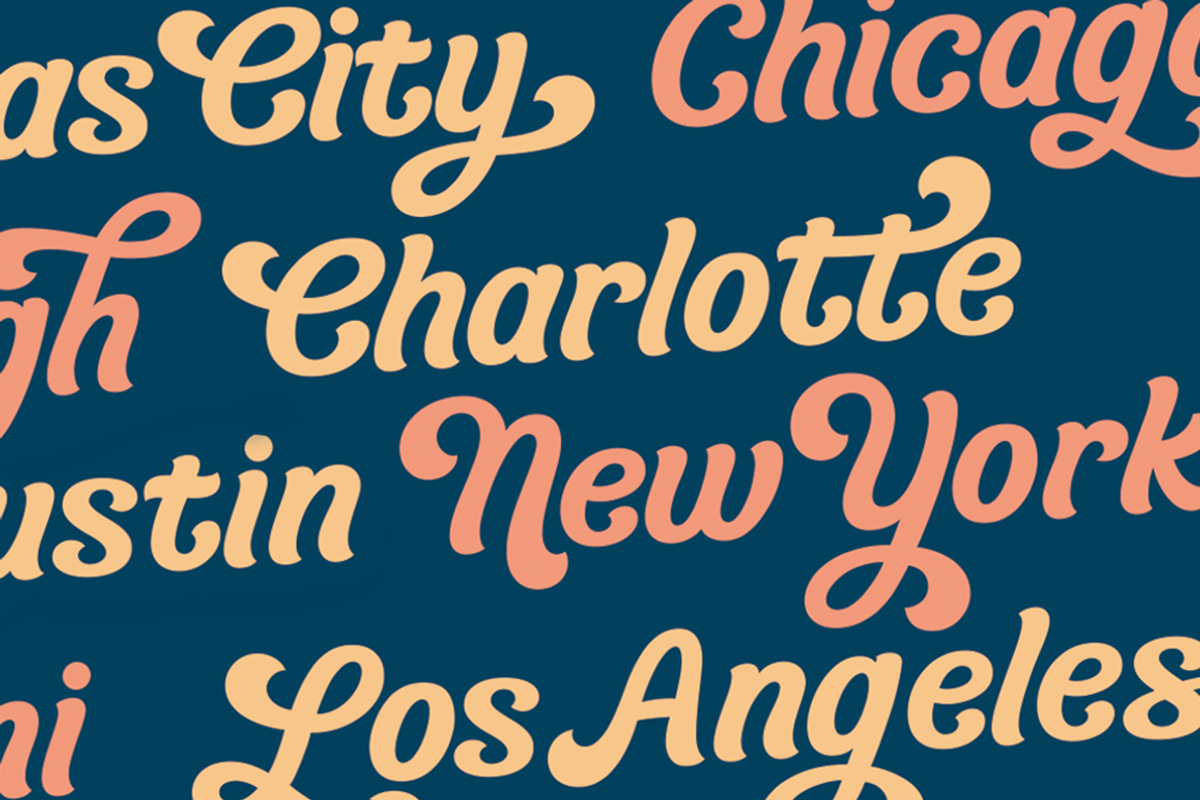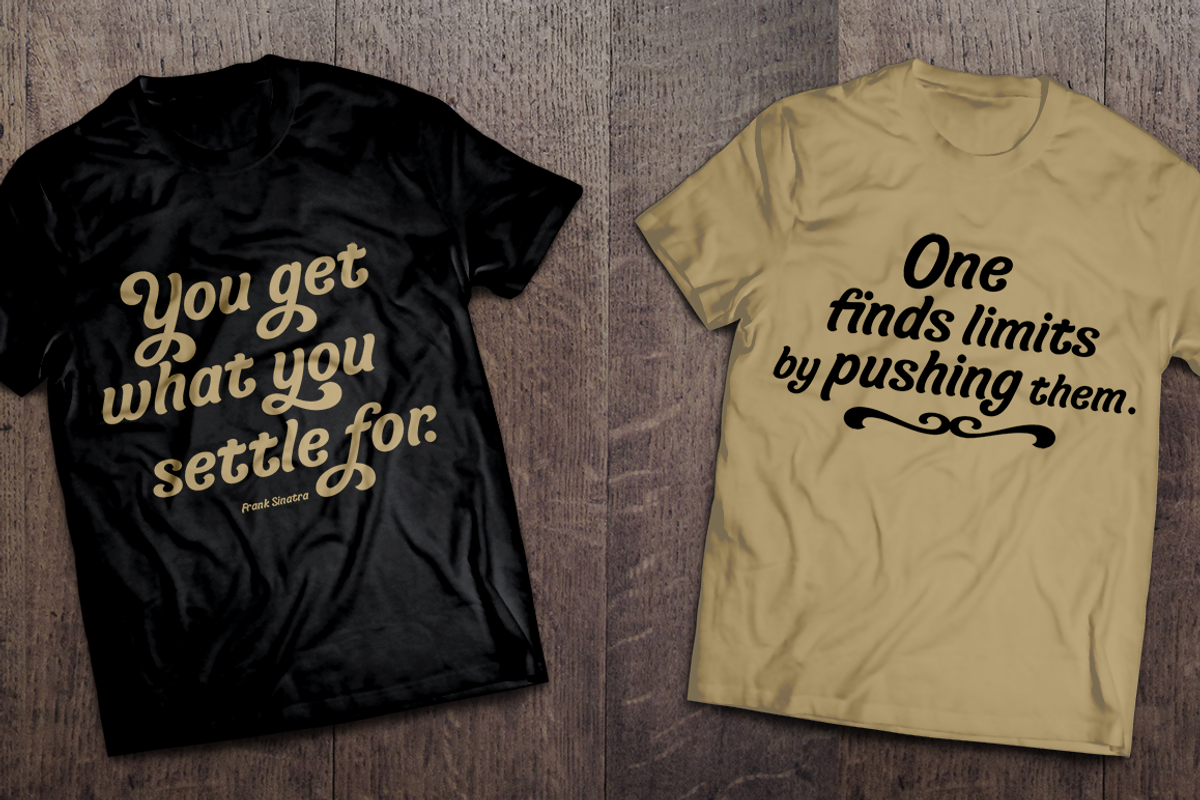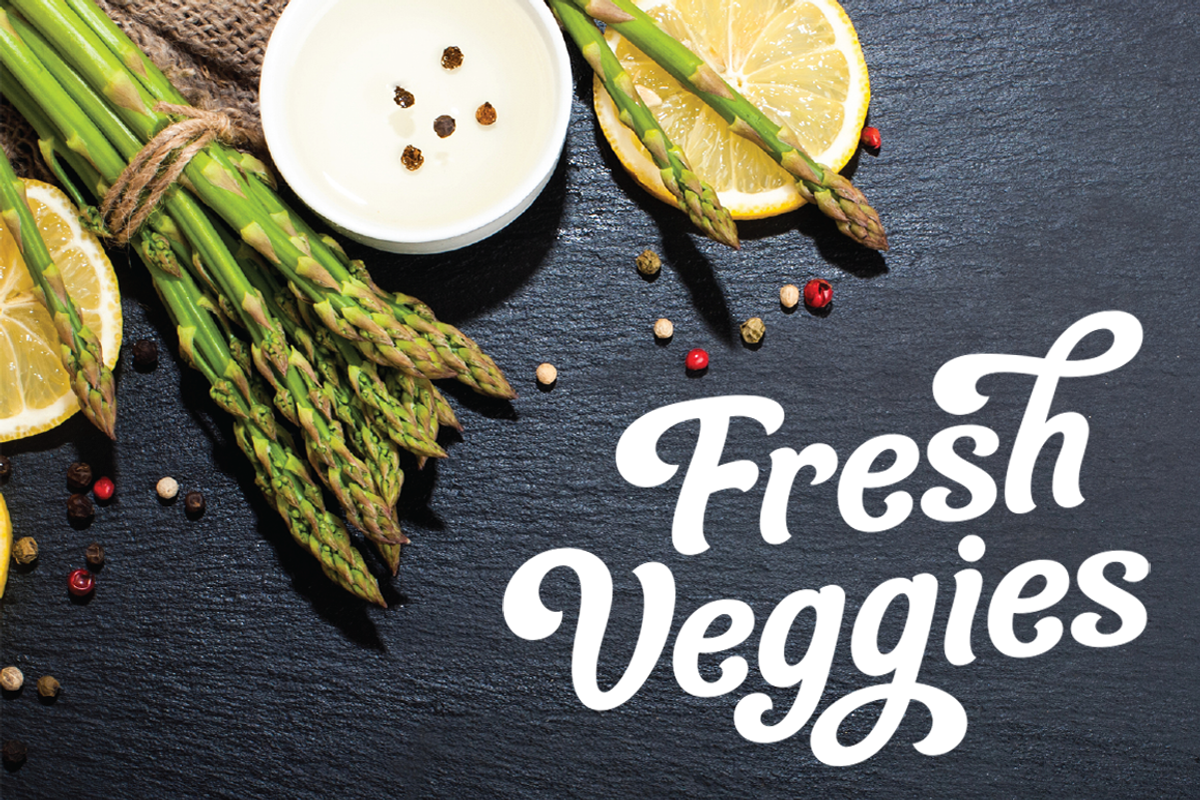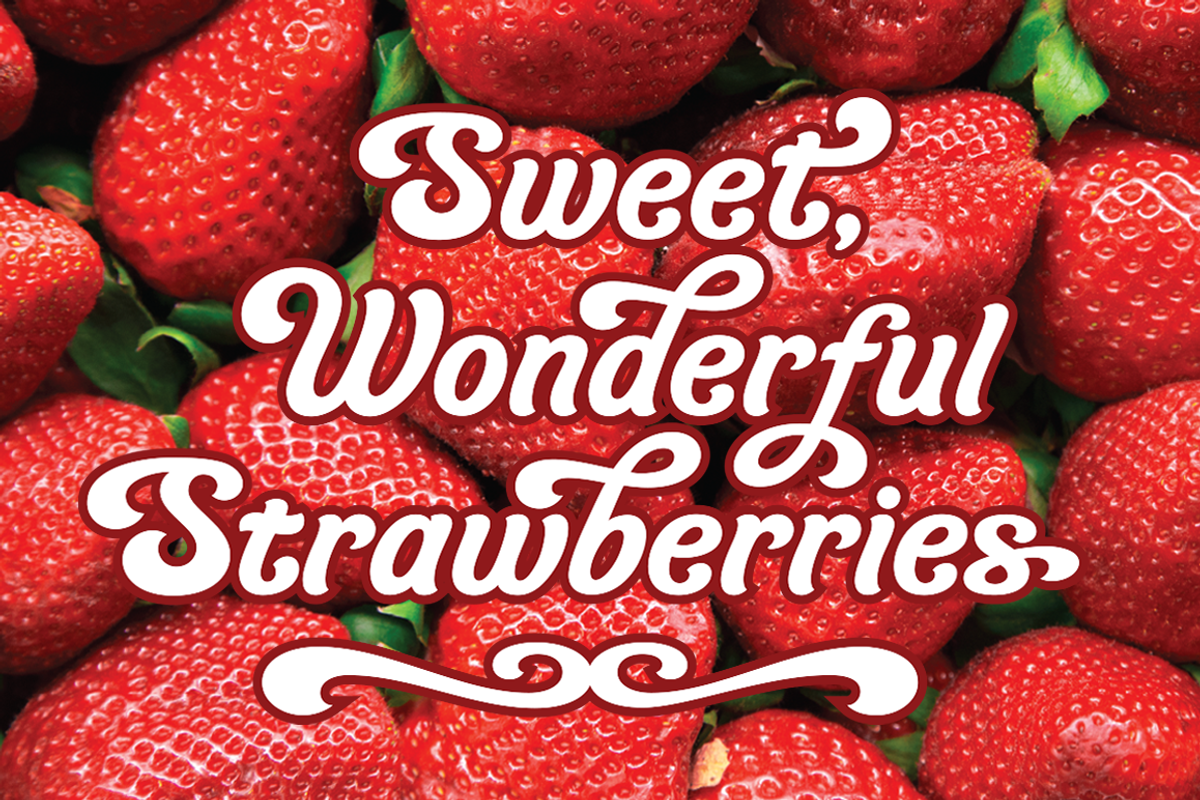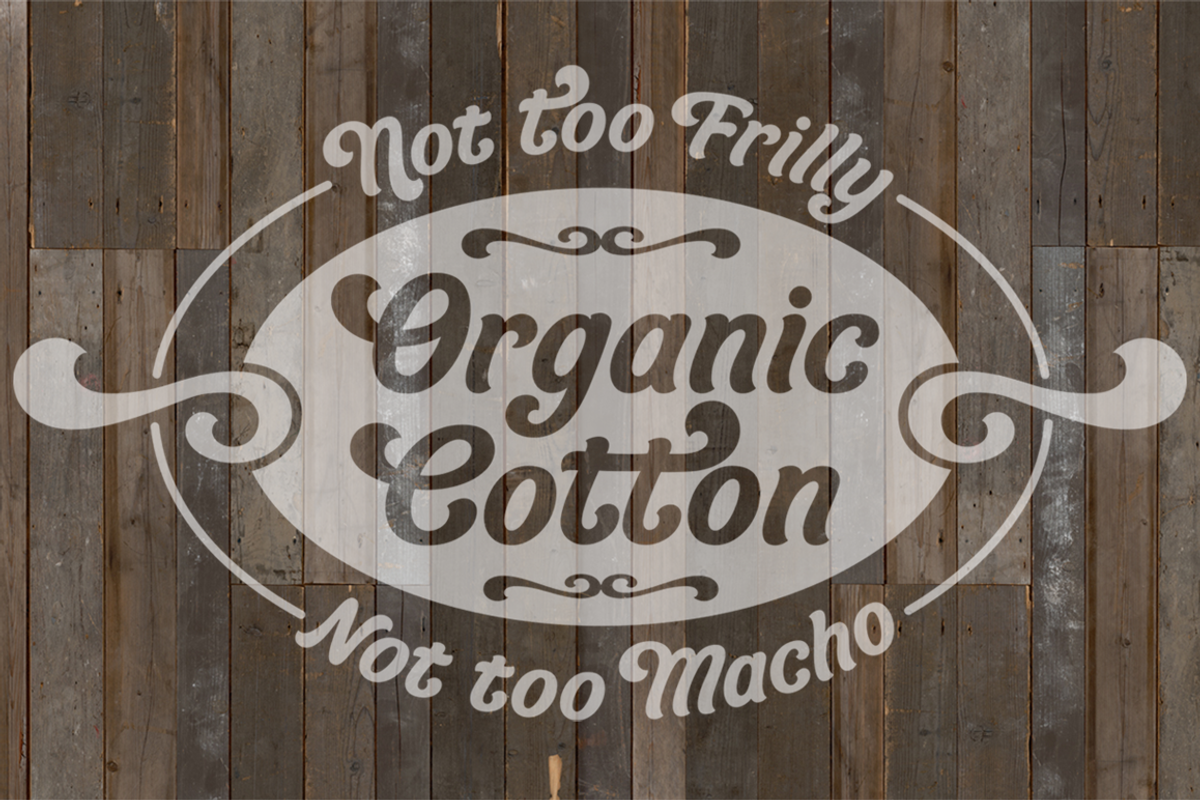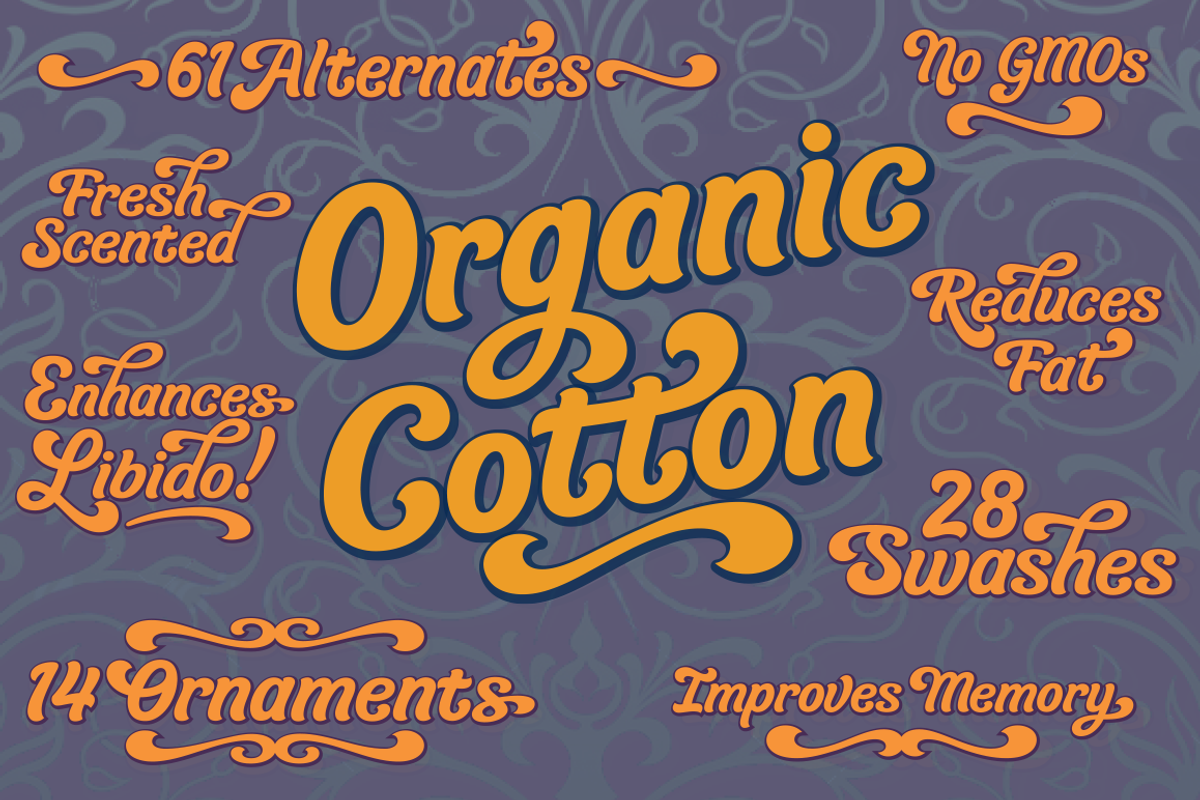
Organic Cotton, a friendly font
Organic Cotton is a friendly, voluptuous typeface. The lettering is based on contemporary brush/pen lettering with a little whoop-de-do added. It is fluid and organic without being hippie-dippy or whimsical - not that I am opposed to those things. Organic Cotton is well suited for packaging and branding and it comes with a 69 alternates, 28 swashes, and 14 ornaments.
- Organic Cotton is well suited for packaging and branding and it comes with a 69 alternates, 28 swashes, and 14 ornaments.